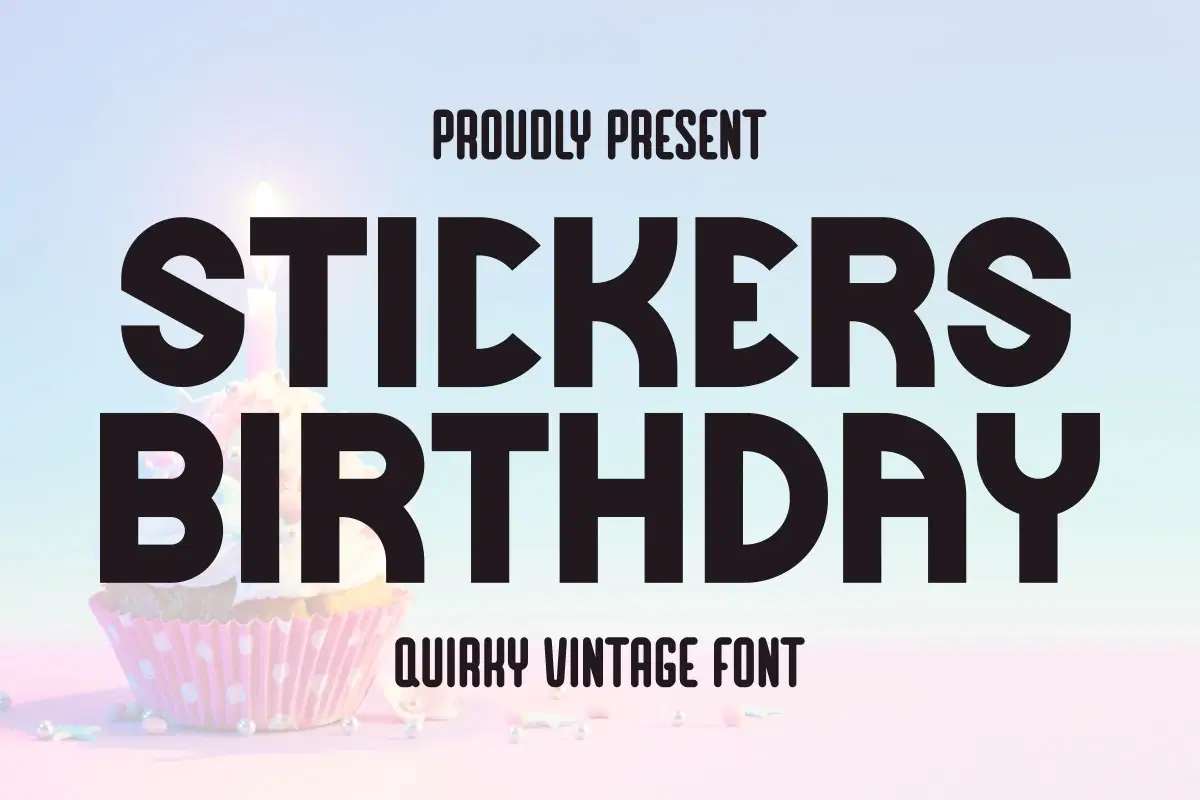
Bring the fun back with Stickers Birthday! 🎉 This bold and quirky vintage font captures a playful retro vibe, perfect for any celebration. Its slightly rounded, thick letterforms make it an ideal display typeface for high-impact graphics that need a cute and friendly feel. Use this versatile font for birthday stickers, party invitations, sublimation projects, T-shirt designs, or creating unique Canva social media posts. Give your designs a dose of nostalgic charm and fun typography!